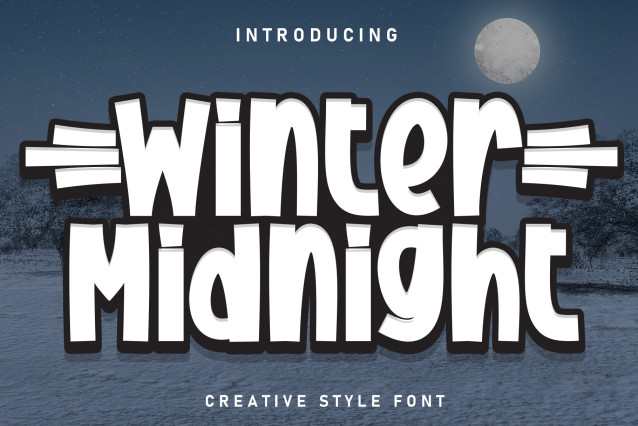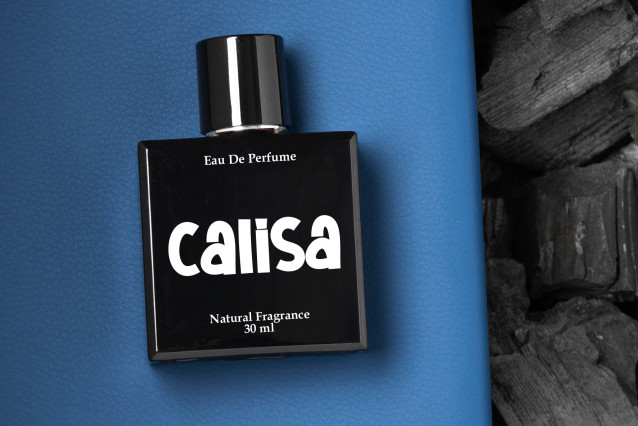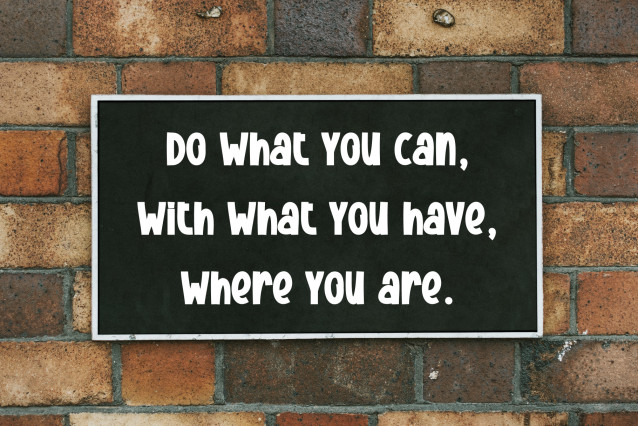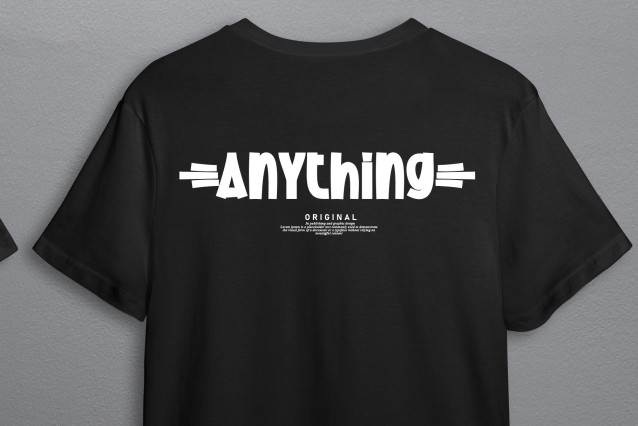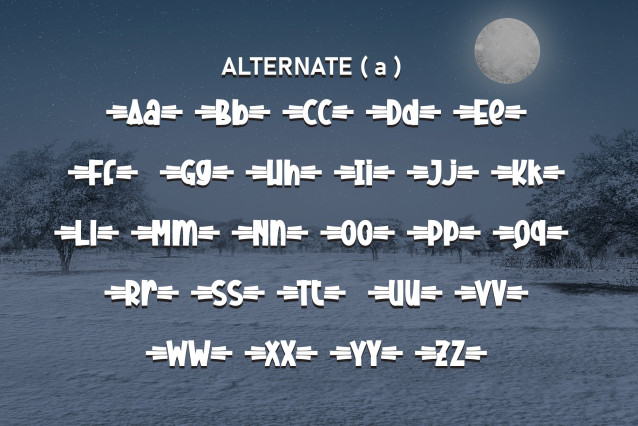
Winter Midnight Display Font
Winter Midnight Display Font is a charming handwritten font that adds a cozy, personal touch to your text. With its elegant and whimsical style, it’s perfect for adding a unique and creative flair to invitations, greeting cards, and more.